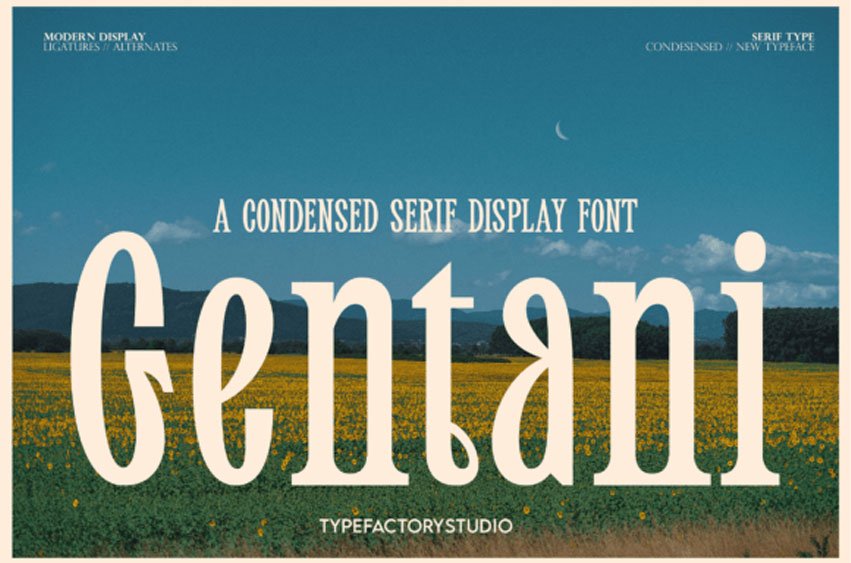
Gentani Font is condensed serif display font designed for modern editorial and branding needs. Featuring refined letterforms, balanced proportions, and distinctive ligatures, it delivers a timeless yet contemporary visual presence.
Perfect for magazines, fashion branding, real estate, packaging, headlines, and high-end visual identities, Gentani brings sophistication and clarity to any design.
With multilingual support, stylistic alternates, and carefully crafted ligatures, this typeface offers flexibility while maintaining a strong and consistent character.
Gentani works beautifully in both large display settings and structured typographic layouts, making it a reliable choice for professional and creative projects.